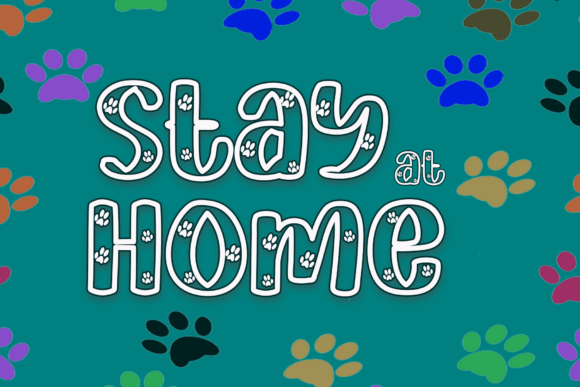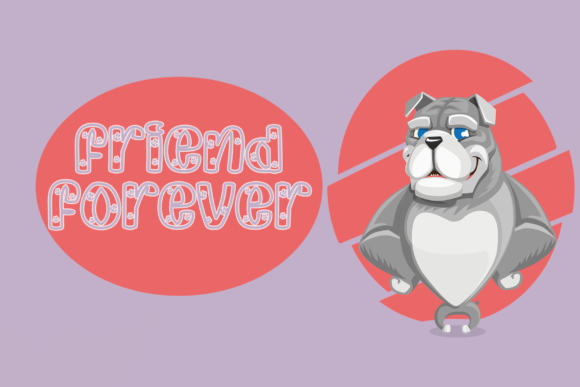
Dog Paw Font
db-ku.com - Script & Handwritten -- Dog Paw is a sweet and friendly handwritten font that is made with great care in order to produce the expected outcomes. This font can be used for writing various kinds of products according to their respective needs.